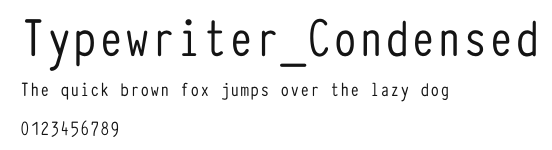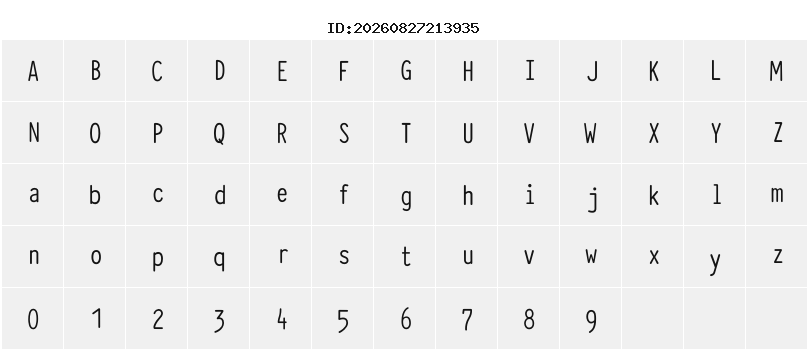
Typewriter_Condensed Preview
• Font Name: Typewriter_Condensed
• Full Font Name: Typewriter_Condensed
• Designer: Volker Busse
• Manufacturer: Volker Busse, Berlin
About Typewriter_Condensed.otf
Typewriter_Condensed.otf is a modern, elegant sans-serif font designed for ultimate readability and visual harmony. Perfect for branding, headlines, web design, and print materials.